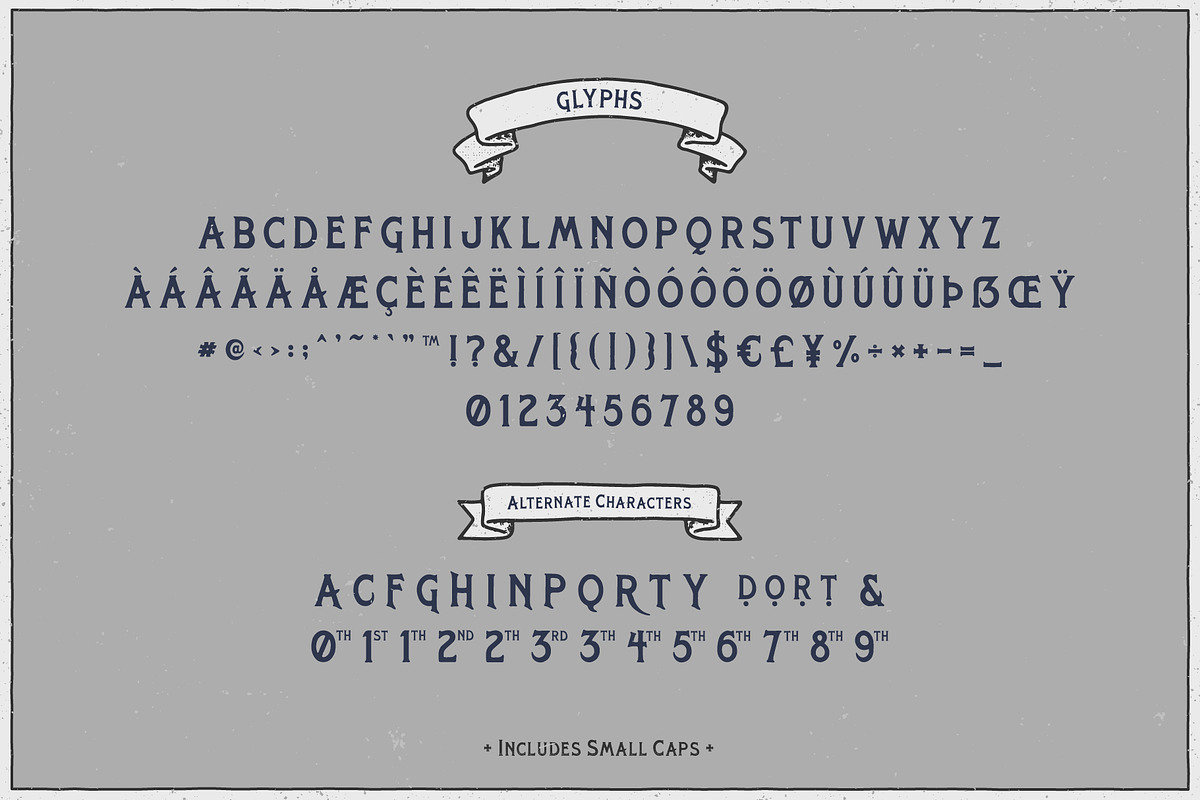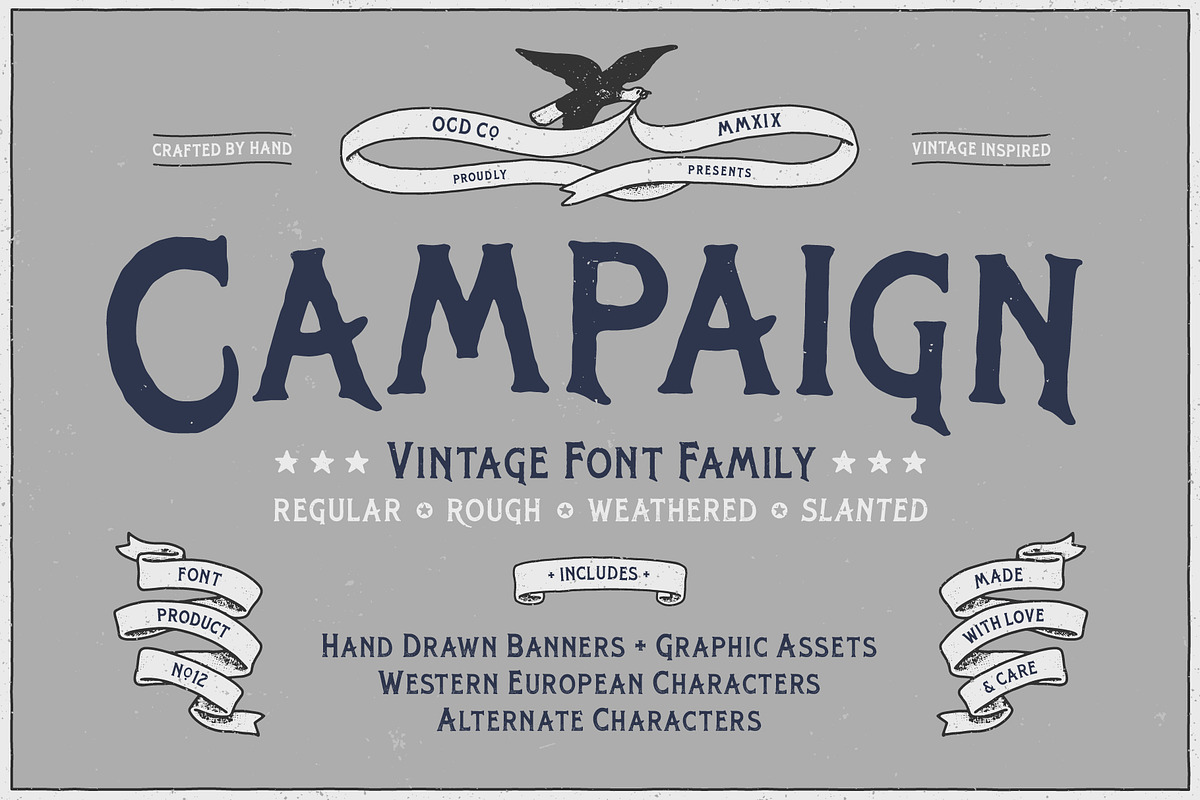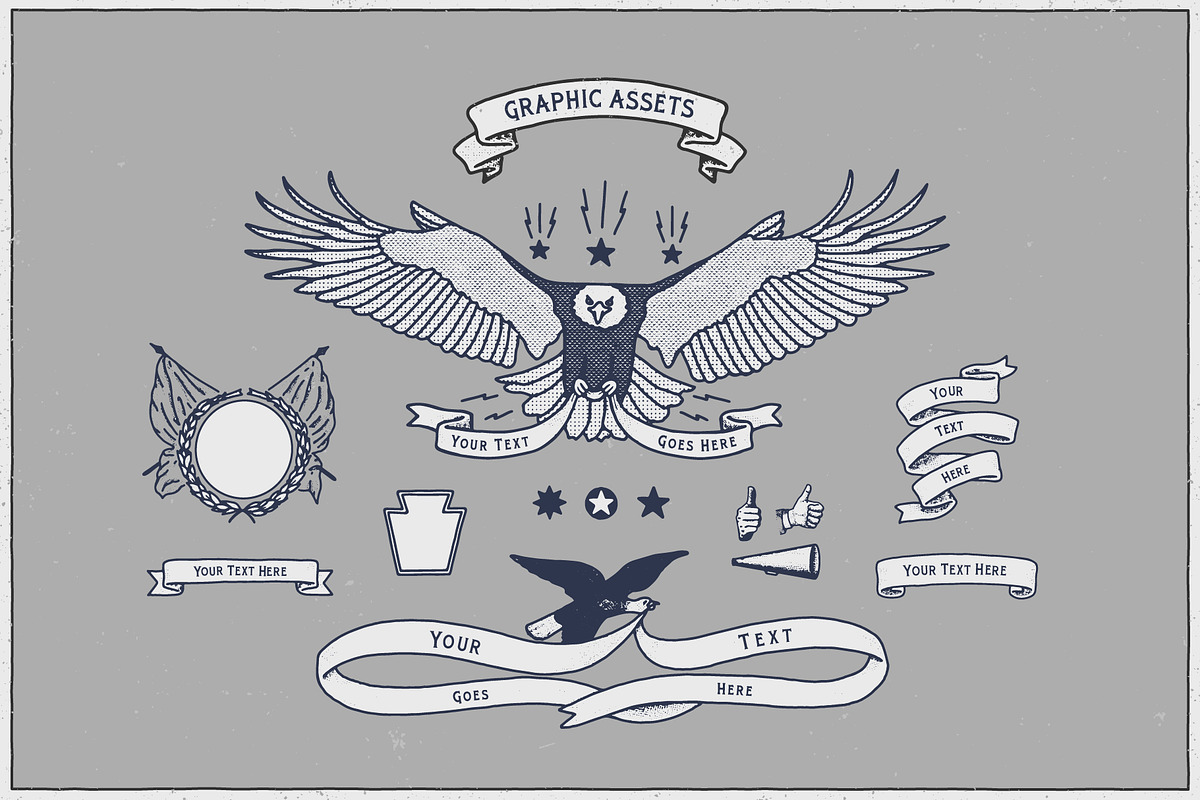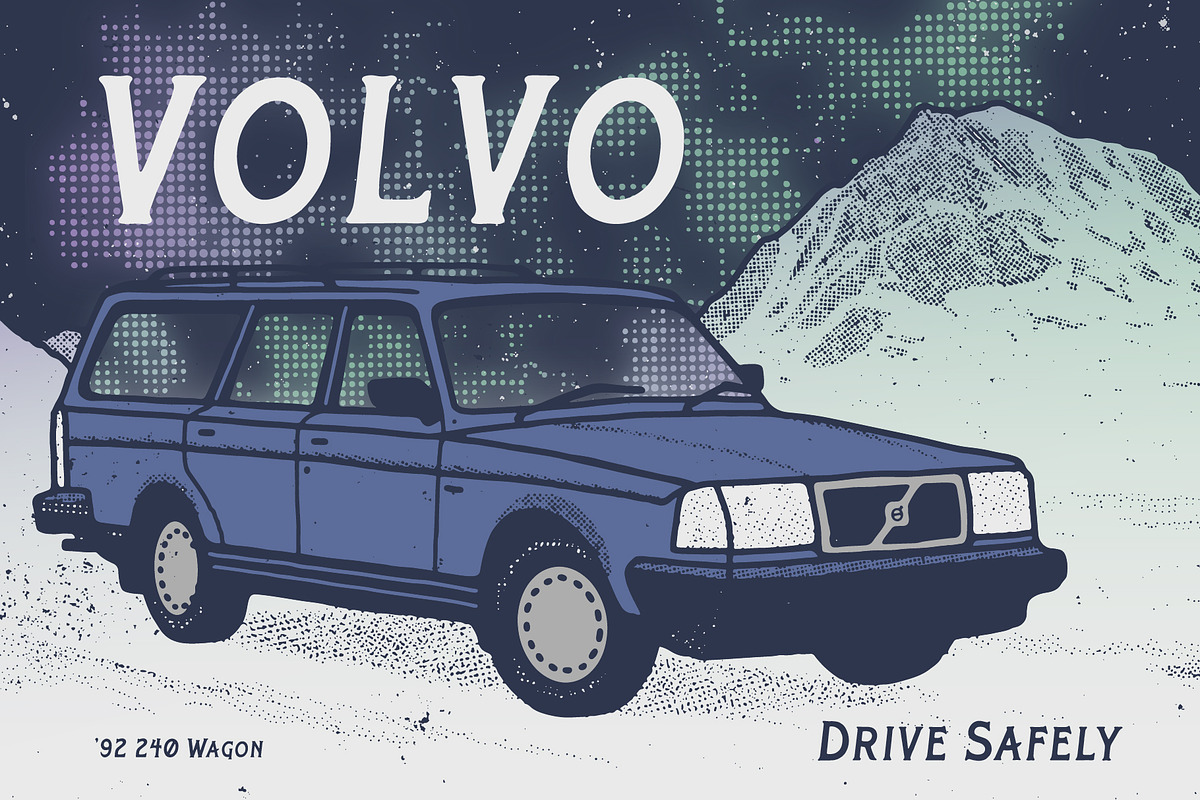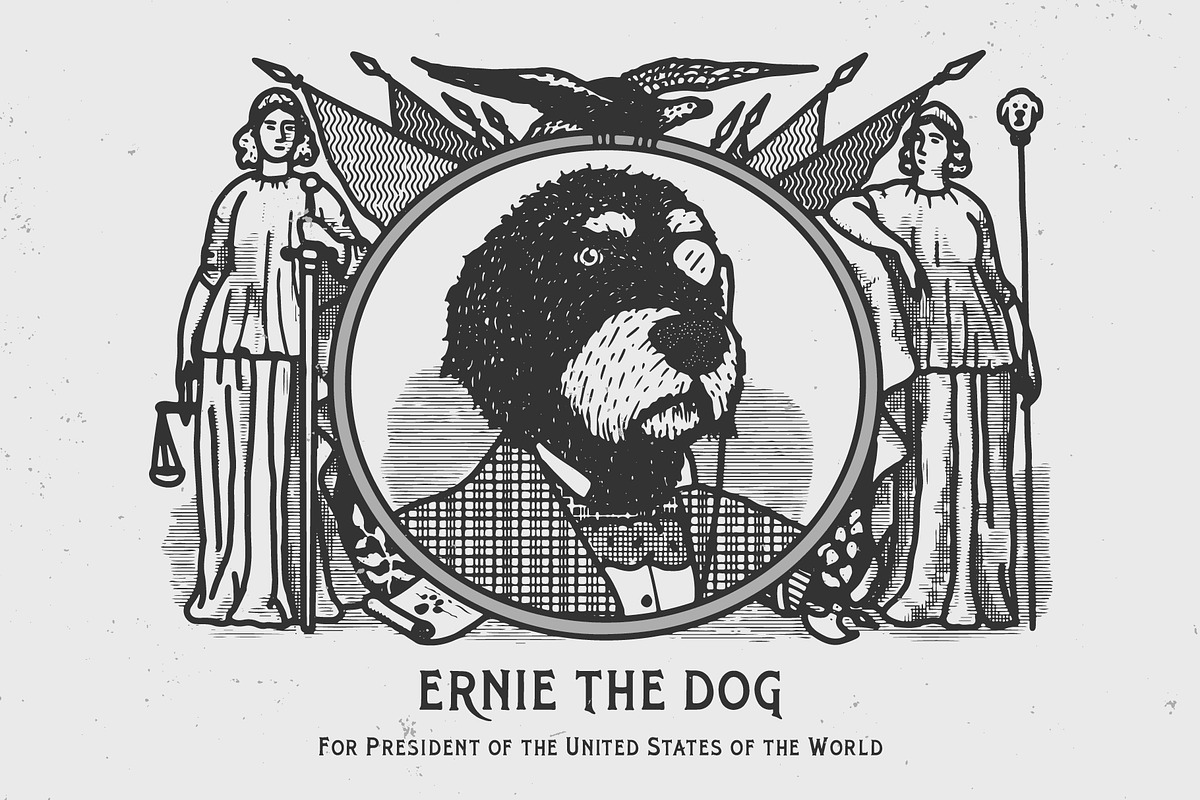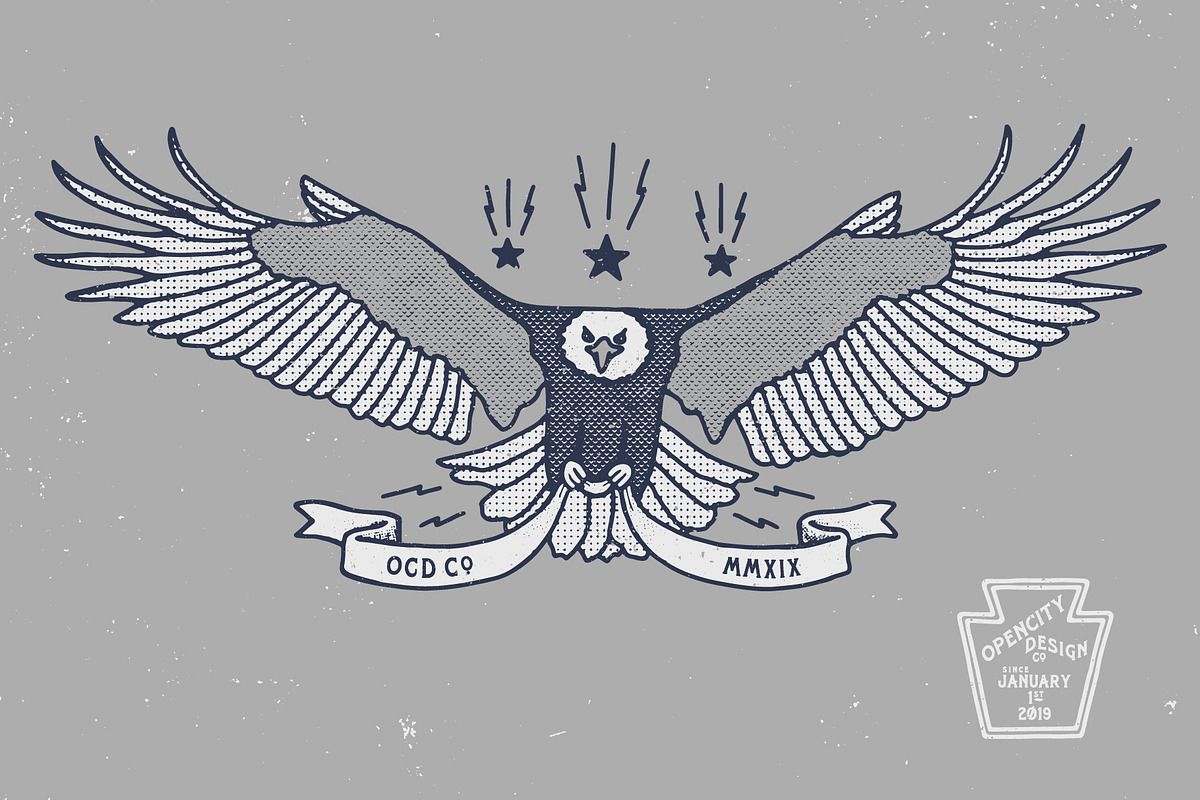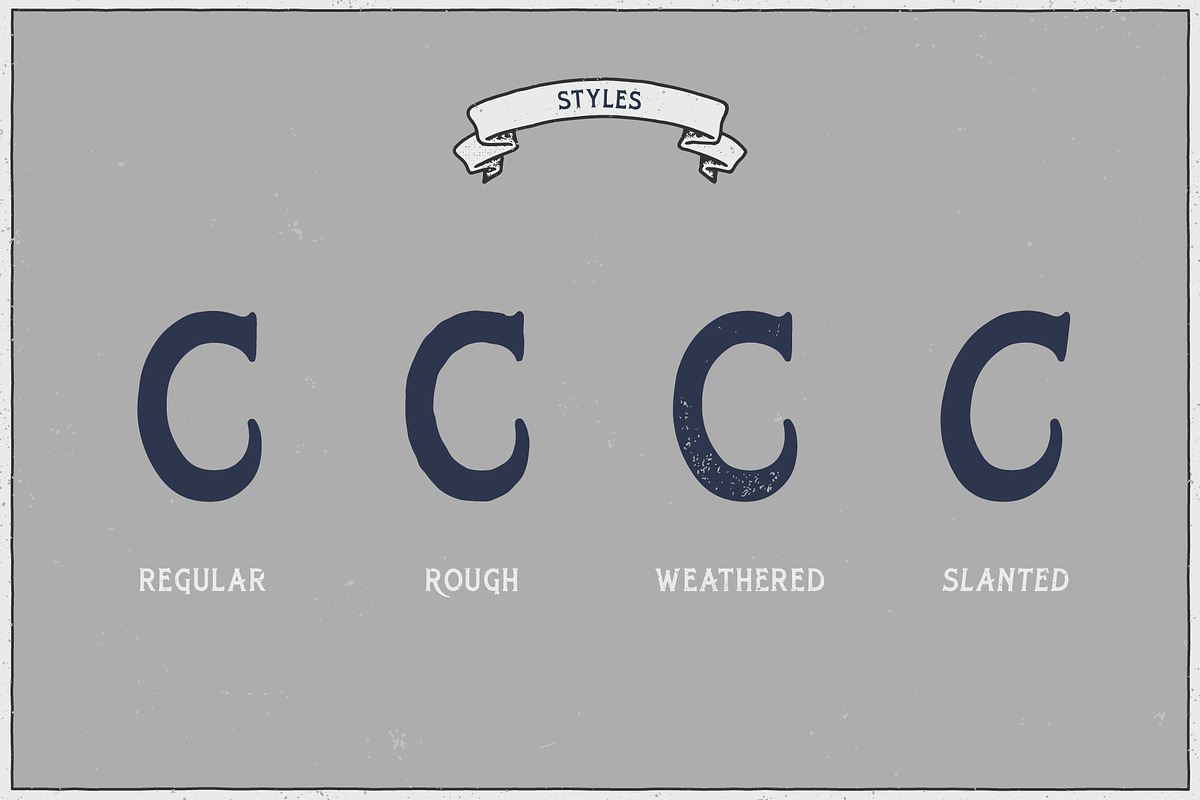
Campaign - Vintage Font Family
OCDCO 2019 Proudly Presents: Campaign - Vintage Font Family
This carefully handcrafted typeface was inspired by propaganda and campaign posters of the early 20th century. It comes in 4 styles and includes an assortment of alternates and hand-drawn graphic assets. This stylish and unique typeface will work for you in most contexts and will give your work that organic hand-drawn feel. Grab it for your next project!
- It comes in 4 styles and includes an assortment of alternates and hand-drawn graphic assets.
- Campaign Regular
- Campaign Slanted
- Campaign Rough
- Campaign Weathered